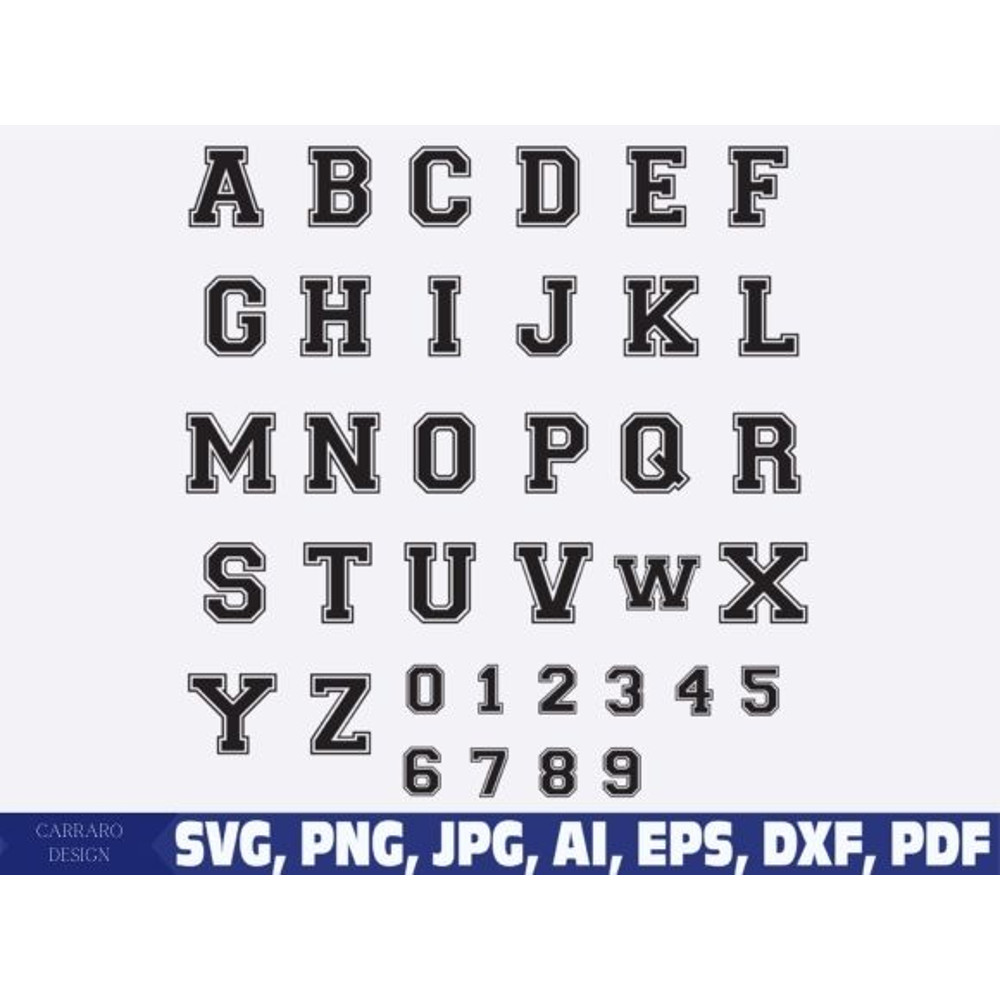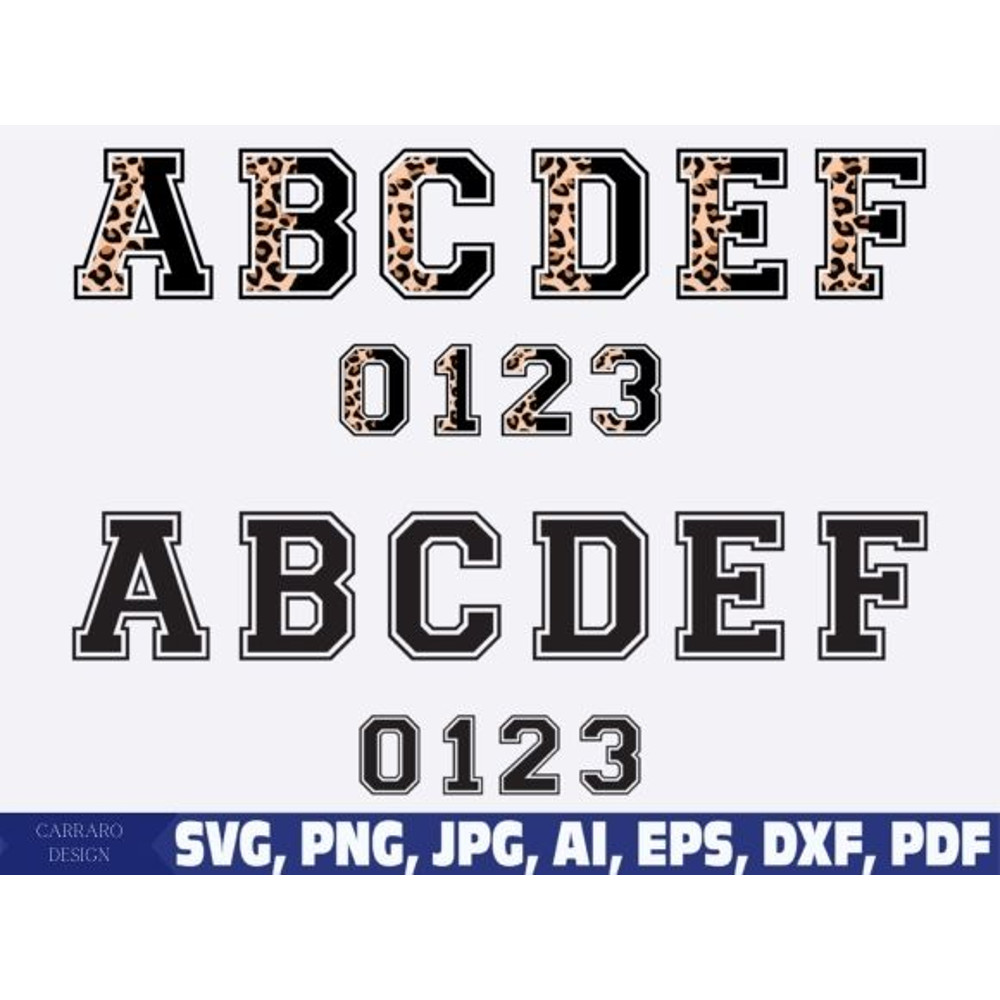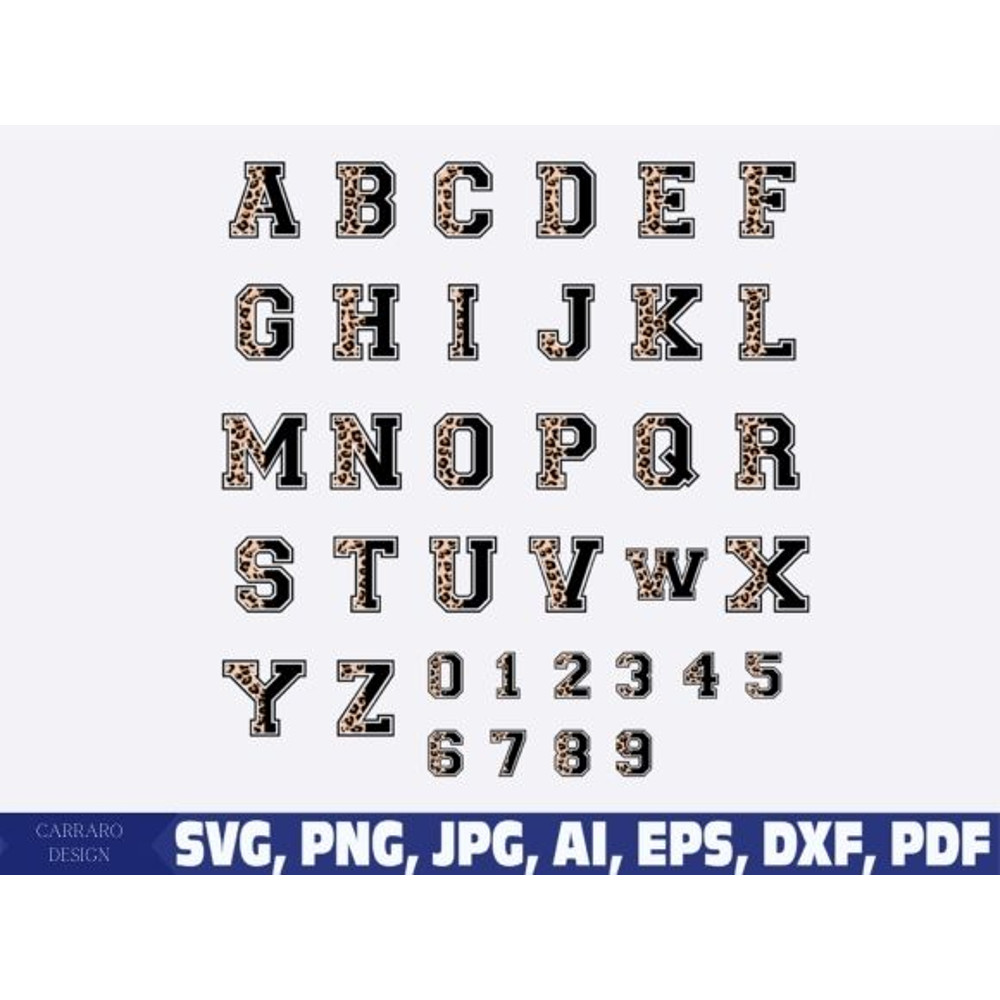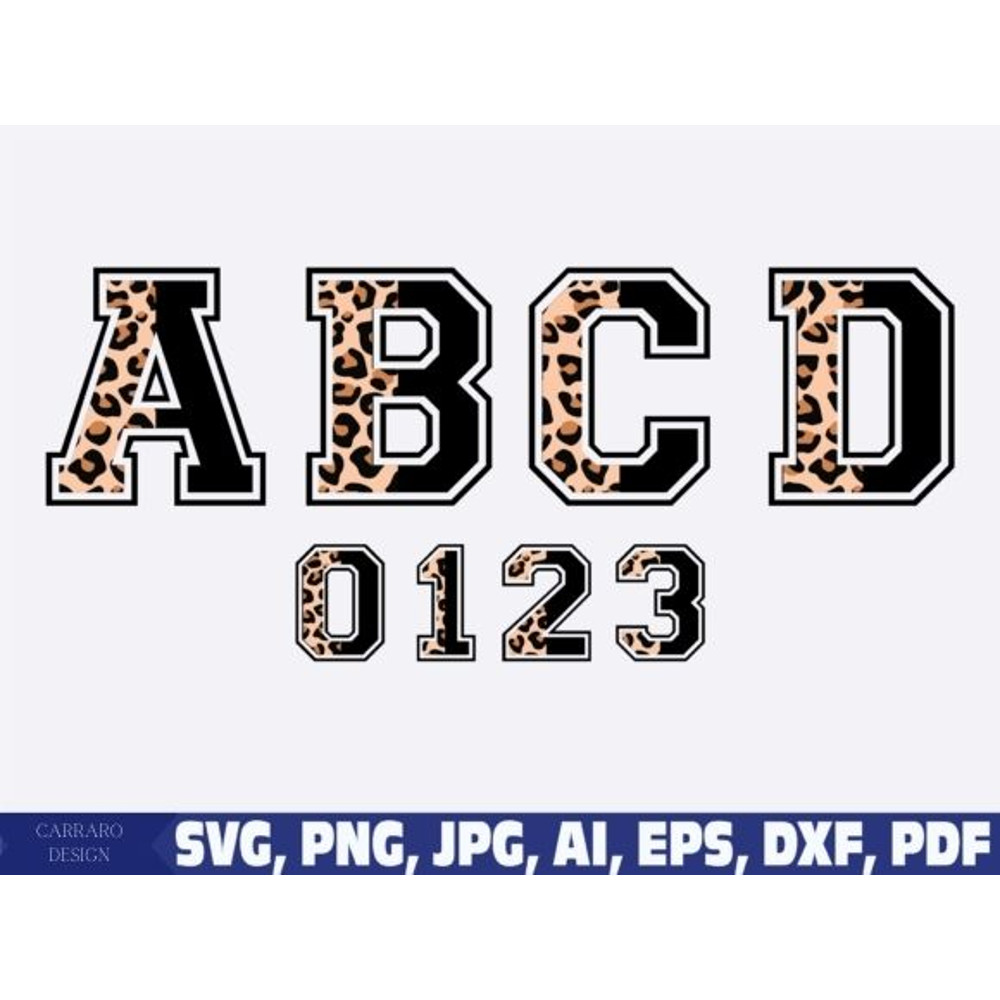
Football SVG Alphabet, Football Numbers Svg Png, Varsity Font, Football Font SVG, Sports Font SVG, Football Letters Svg
Football SVG Alphabet, Football Numbers Svg Png, Varsity Font, Football Font SVG, Sports Font SVG, Football Letters Svg, University Font Svg
This lovely Football SVG Alphabet pack was created from scratch. This means the number of nodes in each letter is reduced to a minimum, so they're guaranteed to cut fast & without any issues.